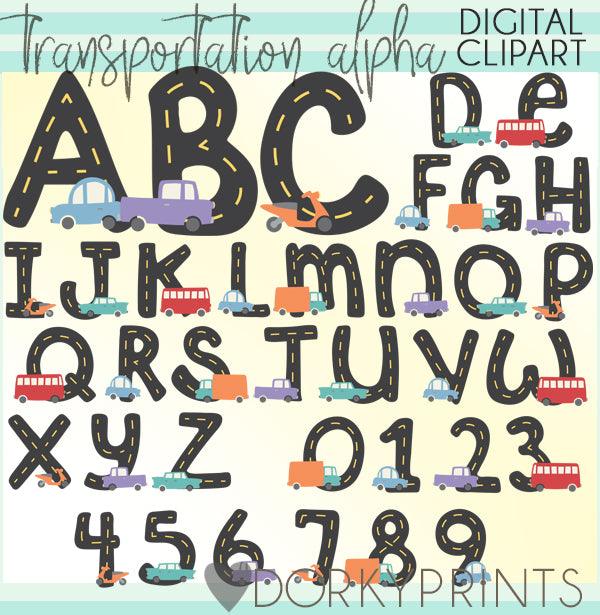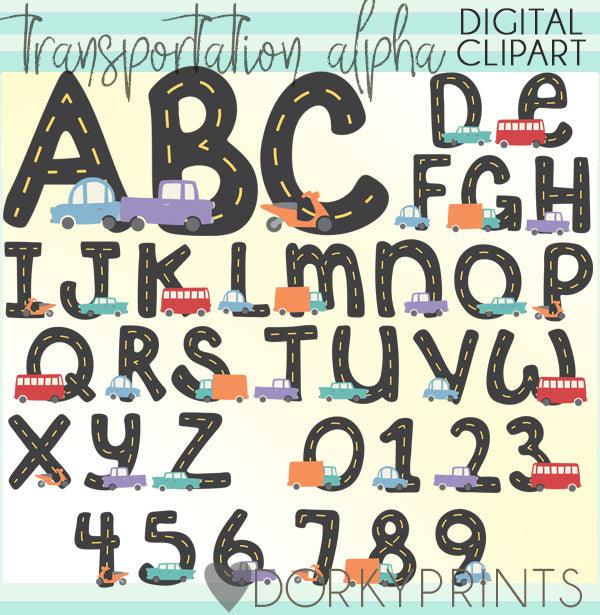
Transportation Alphabet Clipart
This alphabet is ready to hit the road! You will get 36 Digital Clip Art images in PNG format
• the full alphabet - designed as roads with cars
• numbers 0-9 - designed as roads with cars